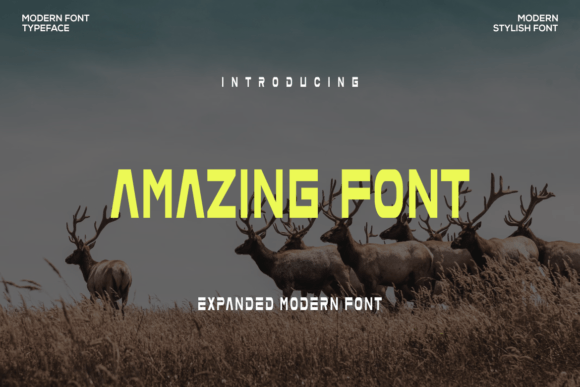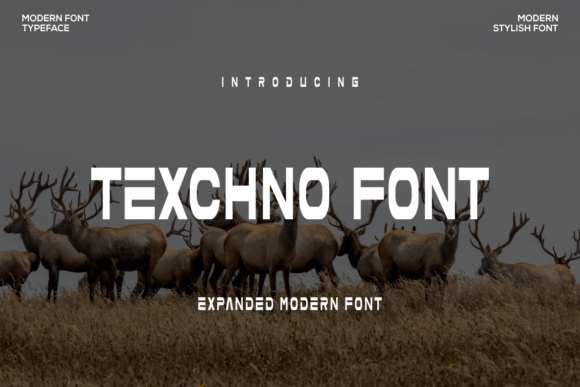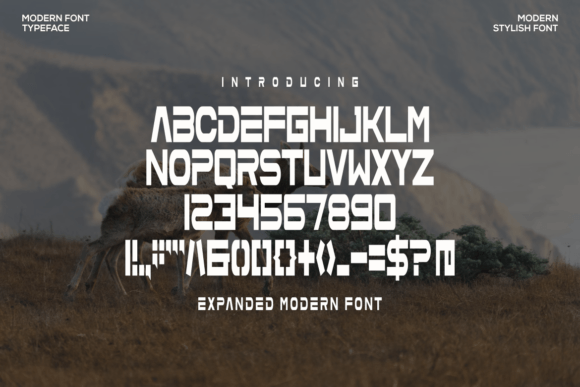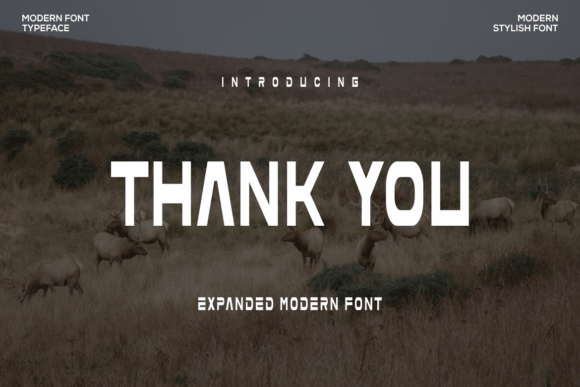
Kijlang Font – Free Download
Introduction to Kijlang Font
Presenting our new product **Kijlang Font** – Modern Font is a bold and authentic display font.
This font is perfect for any branding project such as logos, t-shirt printing, creative products, and more extraordinary in a variety of contexts.
Key Features of Kijlang Font
Why Choose Kijlang Font?
Kijlang Font offers exceptional quality and versatility, making it a valuable addition to your design toolkit. Whether you’re creating for personal projects or commercial use, Kijlang Font delivers professional results.